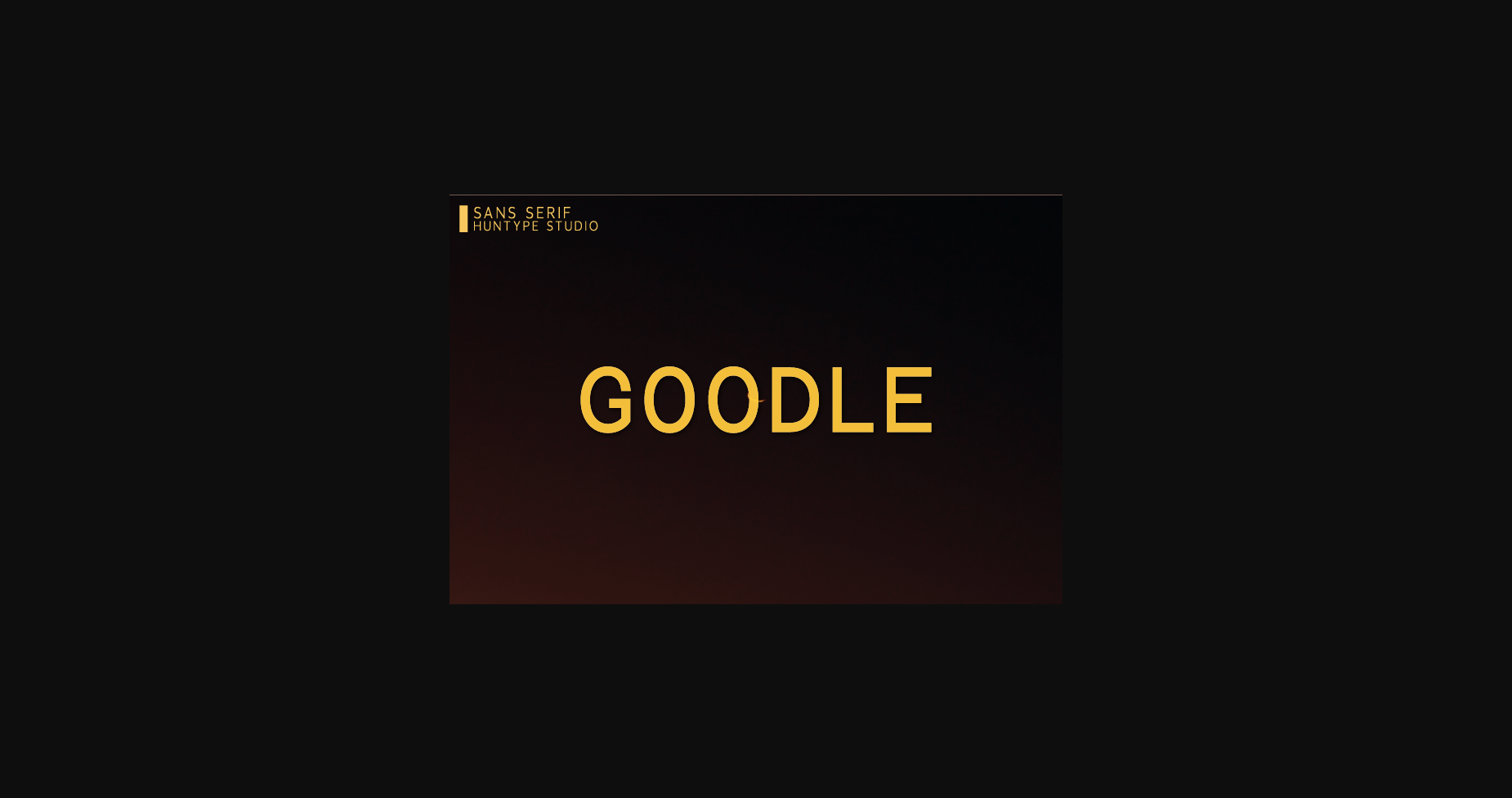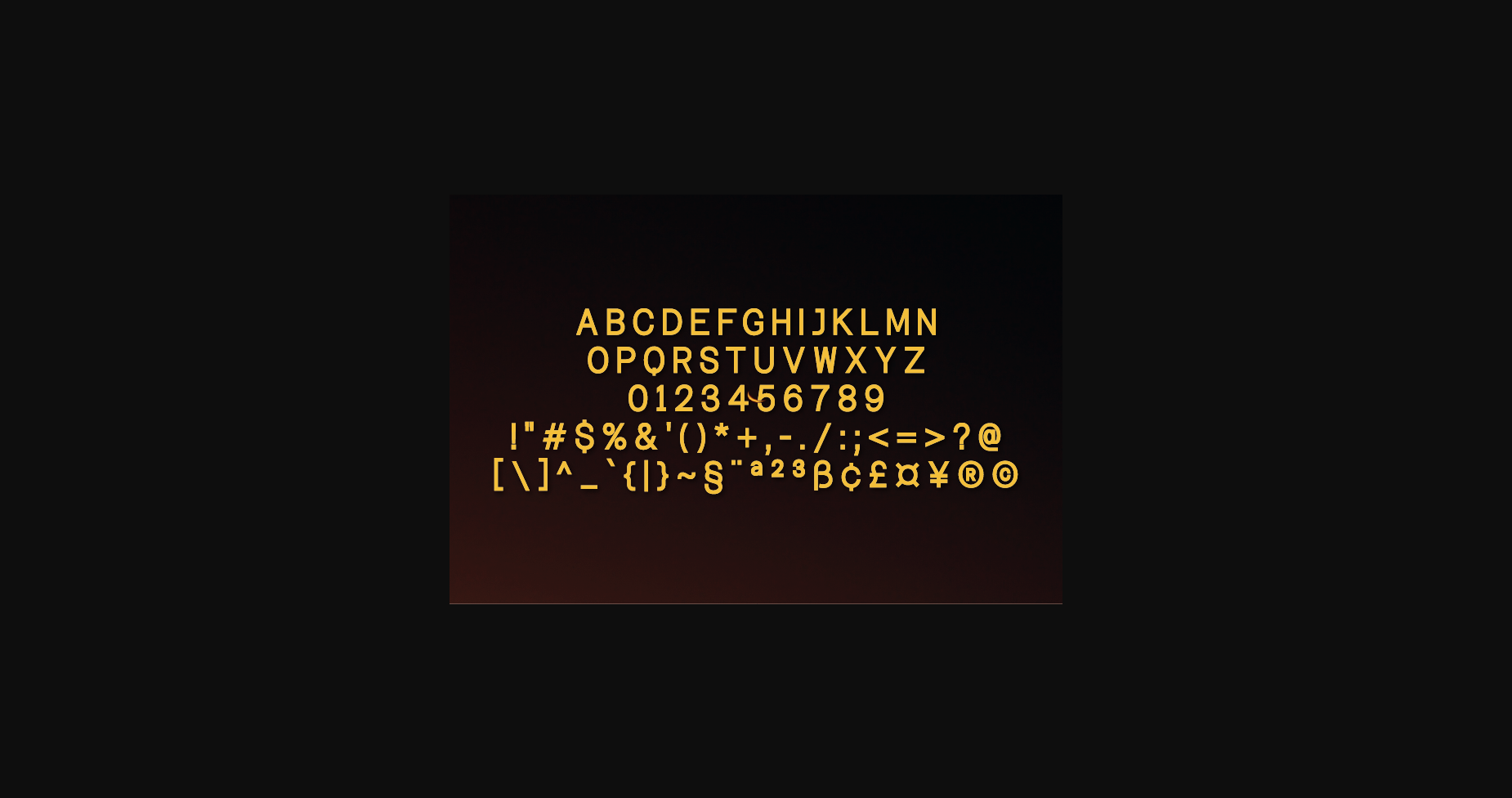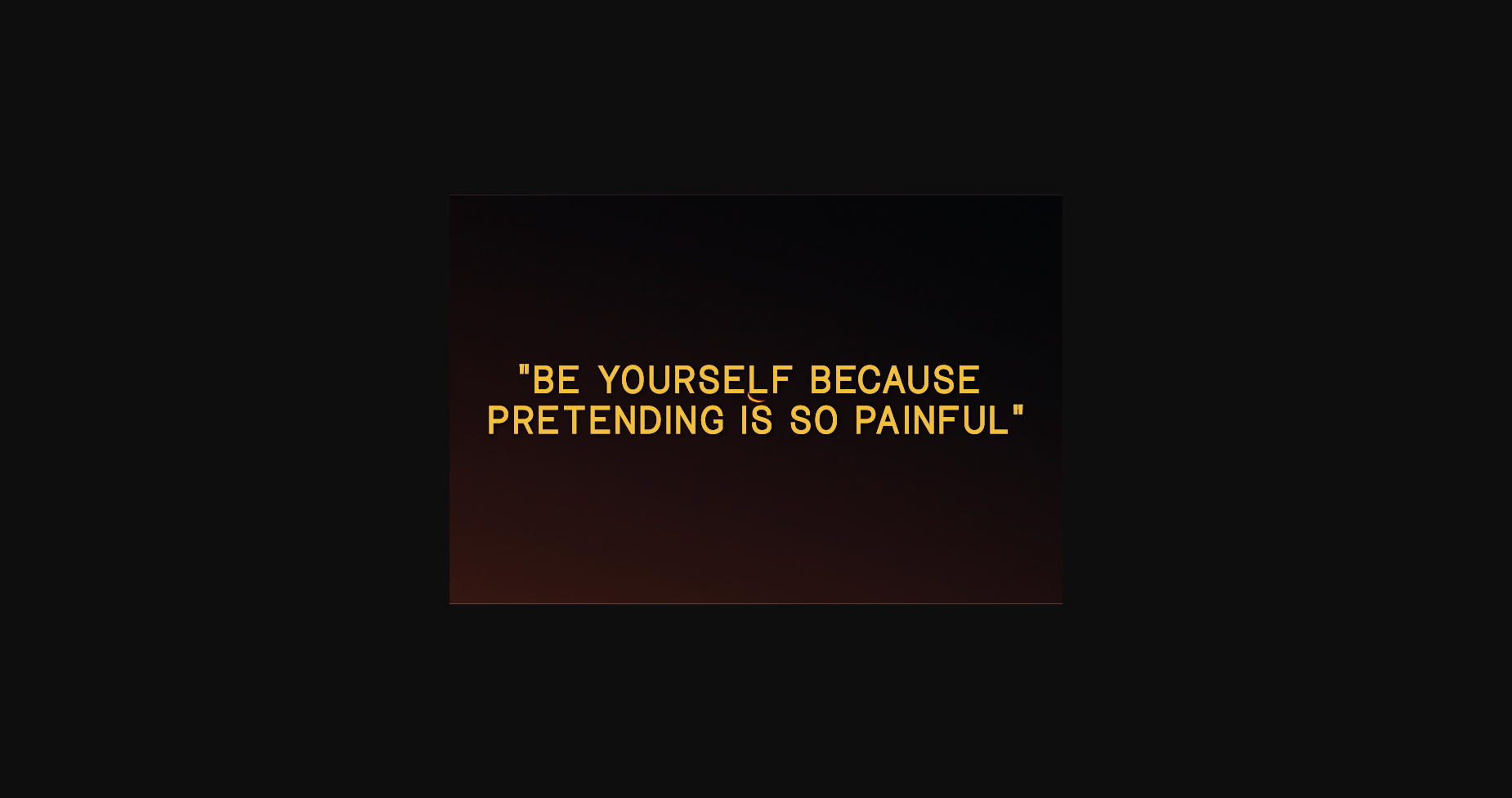
HomeSans Serif FontsGoodle Font Sans Serif Fonts Goodle Font FacebookXPinterestWhatsApp 1 of 5 ... Goodle Font Poster 2... Goodle Font Poster 3... Goodle Font Poster 4... Goodle Font Poster 5... About Goodle Font Goodle is a minimal and neat sans serif font. It can easily be matched to an incredibly large set of projects, so add it to your creative ideas and notice how it makes them stand out! DOWNLOAD NOW People also explored Black Love Font Enternity Font Goosebreak Hastife Font Rigel Font Dance Font Stephen & Gillion Font Enjoys Easter Font Antique Fontbear Font 331 0 TagsGoodleGoodle Font Previous articleRelathive FontNext articleTelhavana Font LEAVE A REPLY Cancel reply Comment: Please enter your comment! Name:* Please enter your name here Email:* You have entered an incorrect email address! Please enter your email address here Website: Save my name, email, and website in this browser for the next time I comment. Personal Use Free Multicolore Personal Use Free Read more about this font The Winter Personal Use Free Read more about this font Fontmageddon Personal Use Free Read more about this font Cheese Matcha Font Personal Use Free Read more about this font BLOG 5 Fonts That Will Dominate Design Trends in 2026 5 Fonts for 2026 That Will Dominate Design Trends Typography plays a critical role in visual communication, and as we look ahead to 2026, it’s... Where to Buy American Fonts Online in 2024 How to Install and Use Fonts on Windows, macOS, and Web Projects To increase your work productivity, choose the most readable fonts.